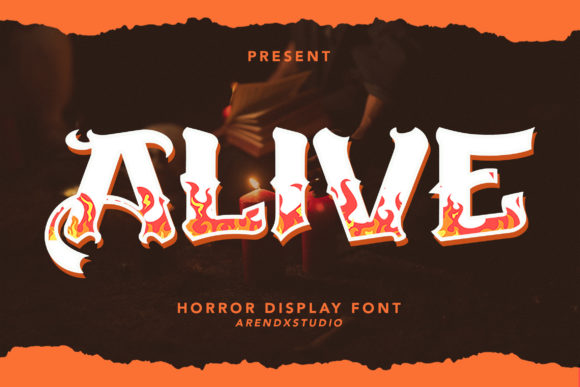
An Honest Review of Alive Font
- ✨ Bold and Thick Lettering: Alive Font is a showstopper, perfect for headlines, titles, and display text.
- ✅ Versatility: It can be used for various topics and industries, from fashion to technology.
- 💡 Easy to Read: Despite its boldness, the font remains clear and legible, even at smaller sizes.
- 🎨 Design Flexibility: Alive Font comes with OpenType features, glyphs, and stylistic alternates, giving you plenty of creative options.
- 🤔 Limited Use in Body Text: Due to its boldness, Alive Font might not be the best choice for body text or paragraphs.
| Font Name | Alive Font |
| Author | Arendxstudio |
| Q: What is Alive Font best used for? | A: Alive Font is best used for display text, headlines, titles, and bold statements. |
| Q: Is Alive Font suitable for body text? | A: No, due to its boldness, Alive Font is not recommended for body text or paragraphs. |
| Q: Does Alive Font come with OpenType features? | A: Yes, Alive Font comes with OpenType features, glyphs, and stylistic alternates, giving you creative flexibility. |